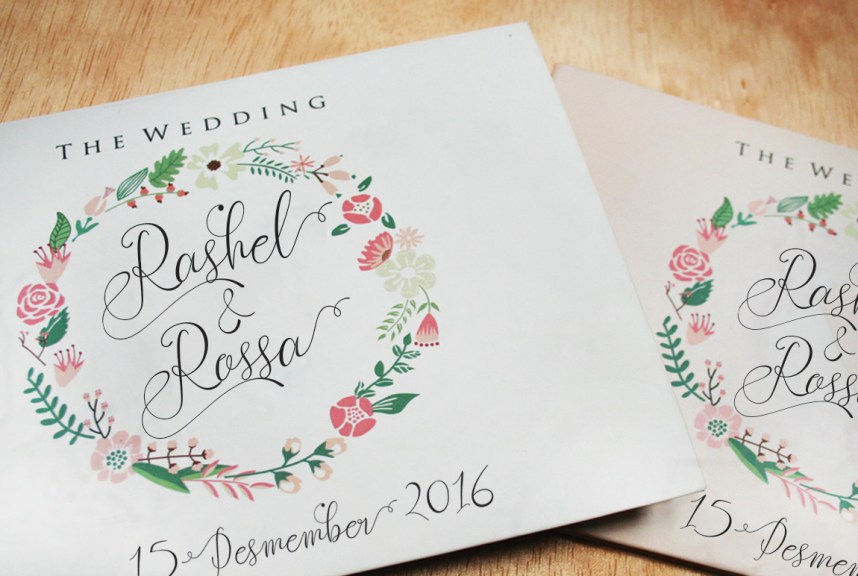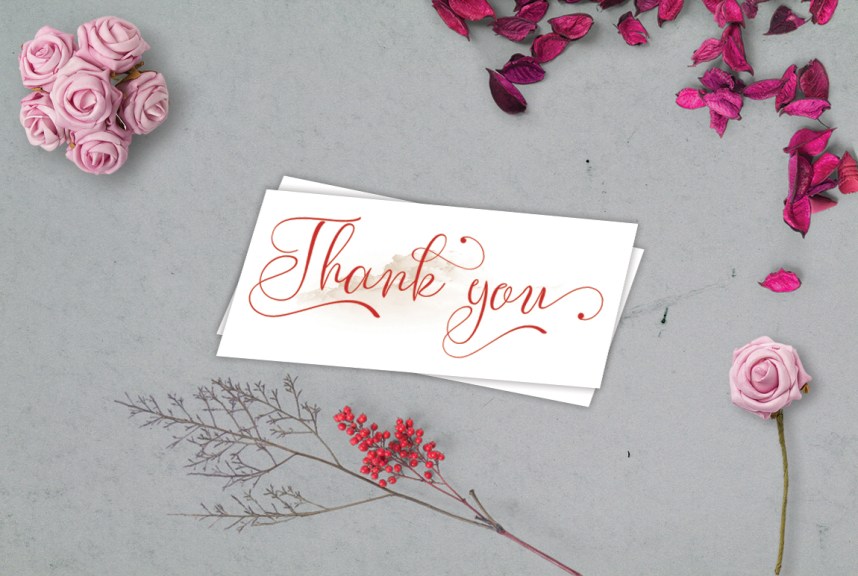
Restuner Script – Free Font
Introducing RestunerScript Font! It is designed and shared by Font Bundles, this is a premium font, are sold on Font Bundles, but it was great, it is free today for download. Restuner script: Is a hand calligraphy, smooth, modern and clasik, calligraphy wavy, which was created to meet the needs of your next design project.
Restuner, Can used for various purposes. such as the title, signature, logo, correspondence, wedding invitations, letterhead, signage, labels, newsletters, posters, badges, etc.